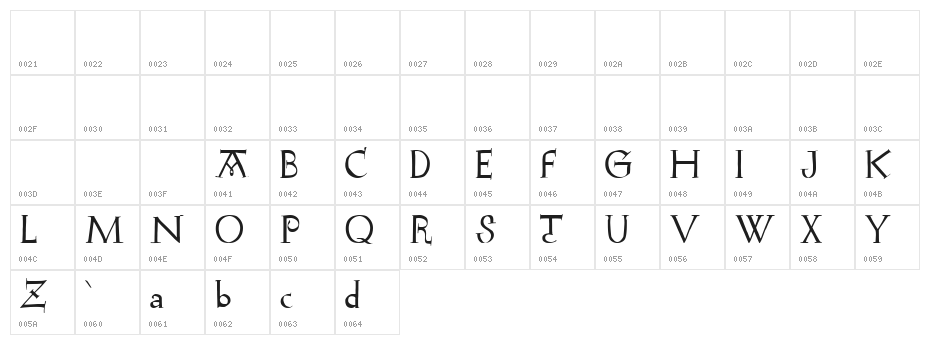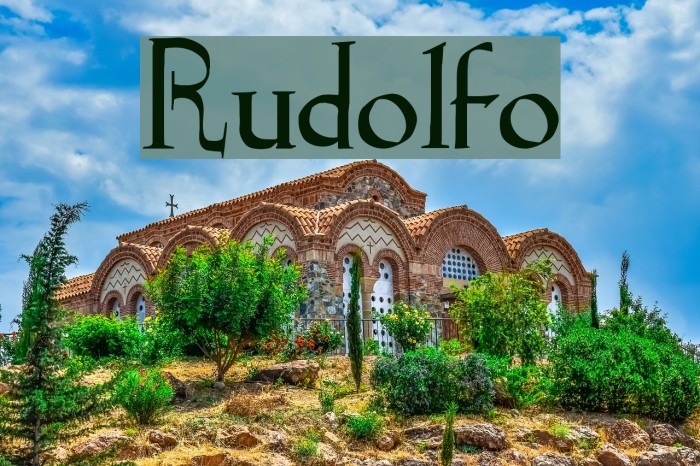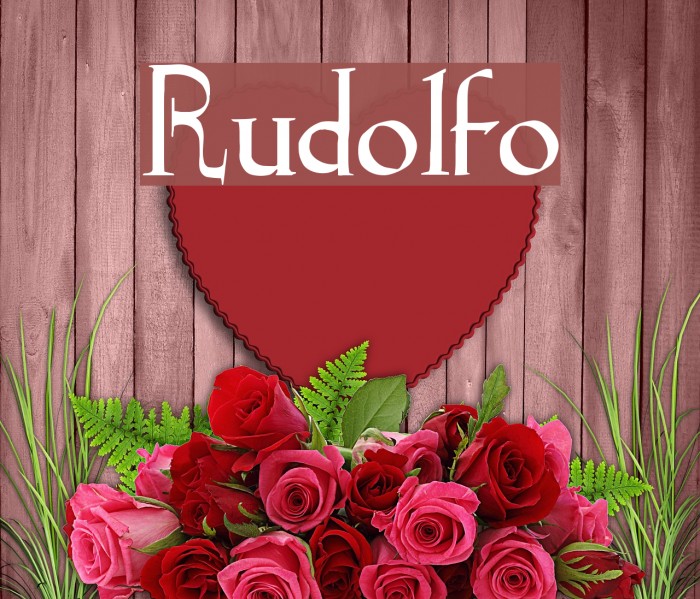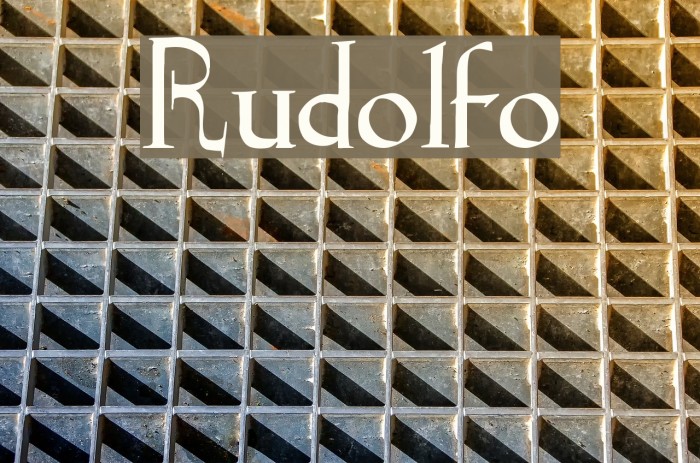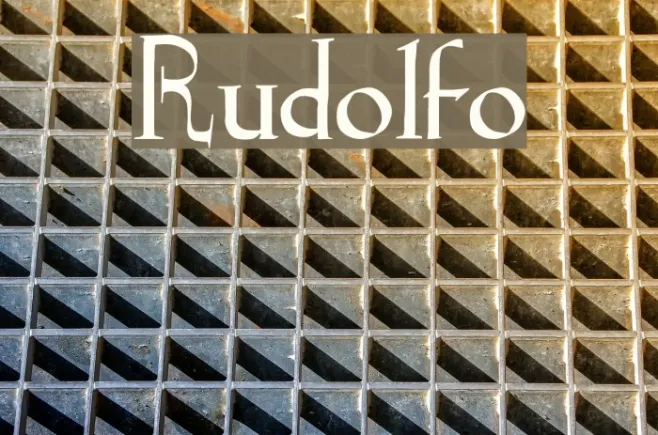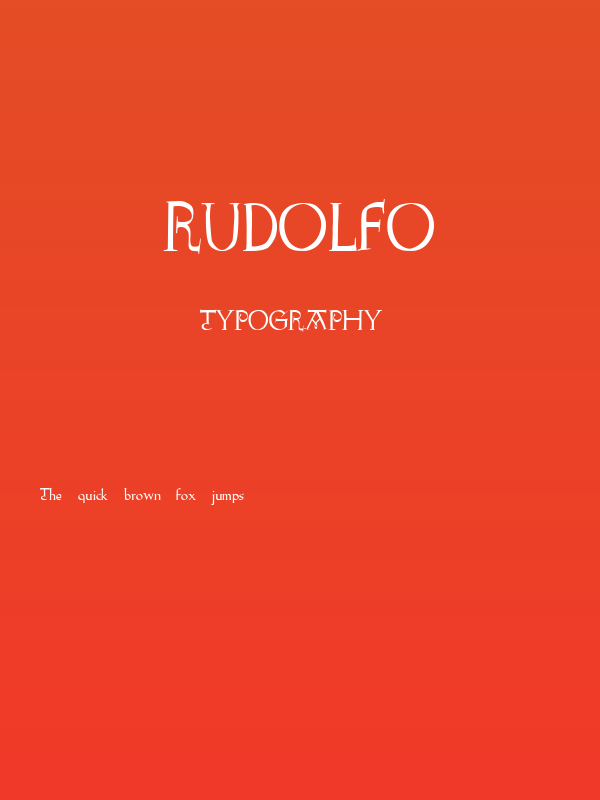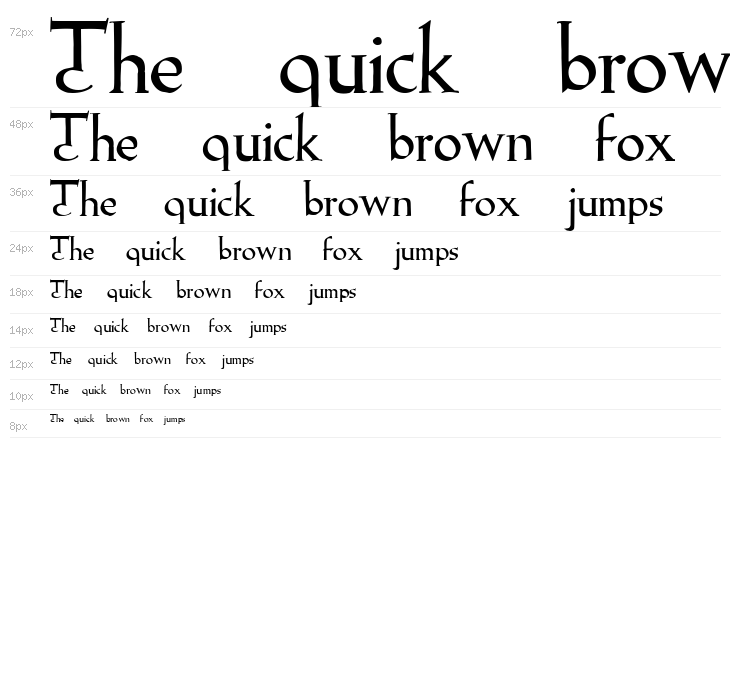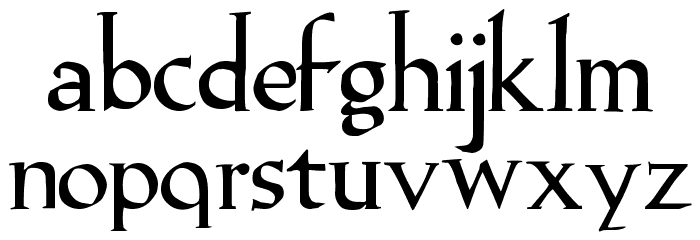
Rudolfo Font
Rudolfo Description
This font exudes a classic and elegant style with a touch of medieval flair. The uppercase letters are characterized by sharp, angular serifs and a slightly condensed form, giving them a strong and authoritative presence. The lowercase letters maintain a consistent style, with unique features such as the elongated descenders and ascenders, adding a sense of sophistication. The numerals are well-proportioned, complementing the overall design. Special characters are crafted with the same attention to detail, ensuring a cohesive look across all glyphs. The font's intricate design elements make it suitable for projects that require a historical or fantasy theme.
Overall StyleClassic
Proposed ProjectsIdeal for book covers, historical documents, fantasy-themed designs, and branding that requires a touch of elegance.